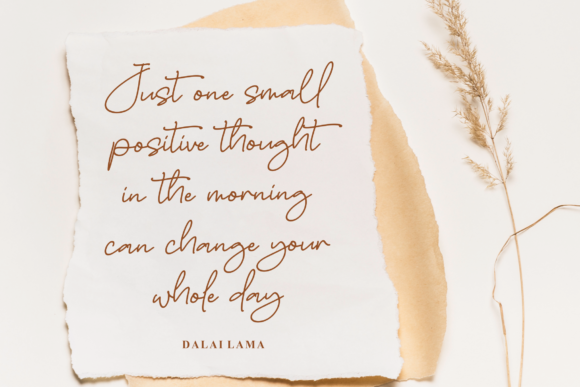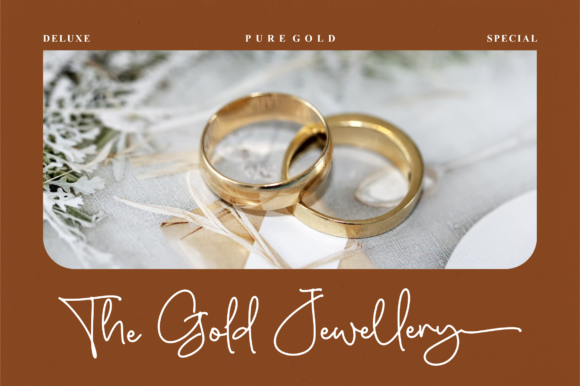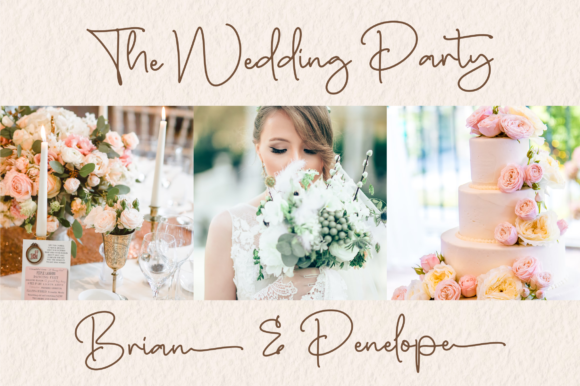
Introduction to Miracle Bastian Font
Have you ever been working on a creative project, pouring your heart and soul into it, only to feel like something’s missing? Maybe it’s the perfect font to tie everything together, a game-changer that elevates your design from good to great. That’s where the Miracle Bastian Font comes in – a high-quality script font that’s sure to leave a lasting impression.
As a valuable addition to any designer’s library, the Miracle Bastian Font is a must-have for anyone looking to take their creative projects to the next level. With its delicate, detailed design, it’s the perfect choice for designers seeking a high-quality design resource that’s both elegant and refined. And the best part? It’s available for free download, making it an accessible addition to any creative endeavor.
- High-quality, modern design perfect for creative projects and design resources.
- Comes in a single weight, making it easy to use and integrate into various design projects.
- Unique, cursive script design, ideal for adding a touch of elegance and sophistication to any creative project.
Honest Review: Miracle Bastian Font
As a designer, I’m always on the lookout for high-quality design resources to elevate my creative projects. Recently, I stumbled upon the Miracle Bastian Font, and I’m excited to share my honest review.
What works well: ✨ The Miracle Bastian Font has a unique, hand-drawn feel that adds a touch of personality to any design. It’s perfect for creating eye-catching headlines or adding visual interest to text-based elements. The font also comes in a variety of weights, making it versatile for use in different contexts.
One of the standout features of this font is its transparent background, making it easy to combine with other design elements. Plus, it’s a free download, which is a major bonus for designers on a budget.
Limitations: ⚠️ While the Miracle Bastian Font is a great addition to any design library, it may not be suitable for use in formal or professional settings due to its informal, handwritten feel.
Overall impression: The Miracle Bastian Font is a fantastic resource for designers looking to add some personality to their projects. Its unique style and versatility make it a great choice for creative projects, and the free download is a major plus. I’d definitely recommend giving it a try.
- Unique, hand-drawn feel
- Versatile weights
Miracle Bastian Font
The Miracle Bastian Font is a versatile design resource that can be used in a variety of creative projects, including business cards, brochures, and social media graphics.
To get the most out of the Miracle Bastian Font, experiment with different font sizes, colors, and combinations to create a unique and eye-catching design. You can also use it in conjunction with other design elements, such as images and graphics, to add depth and interest to your project.